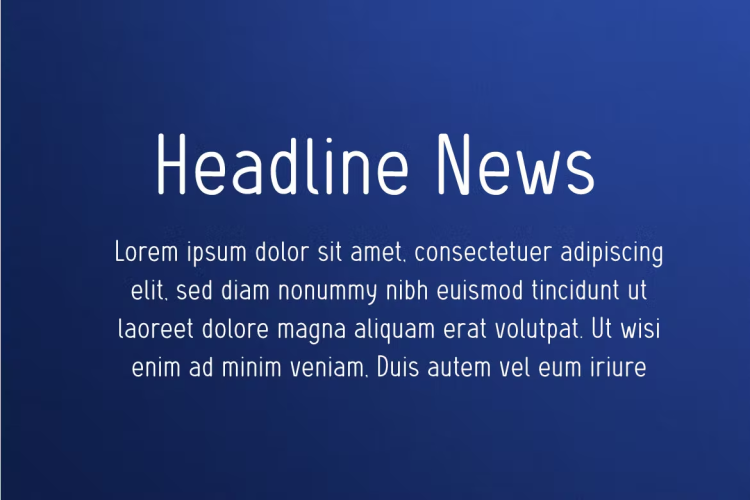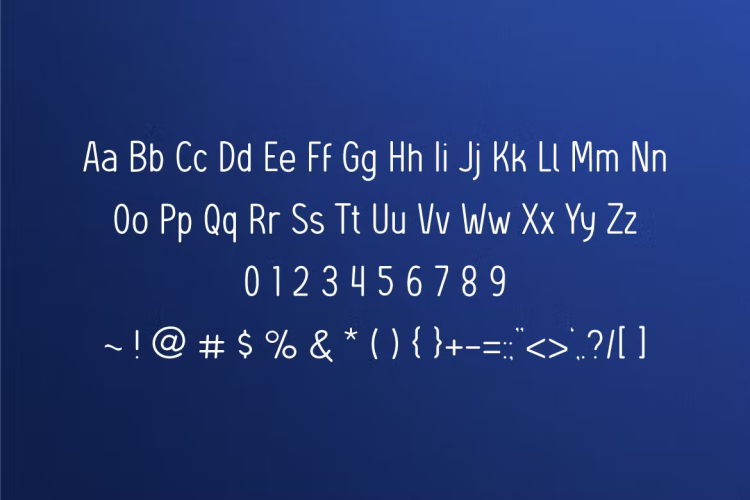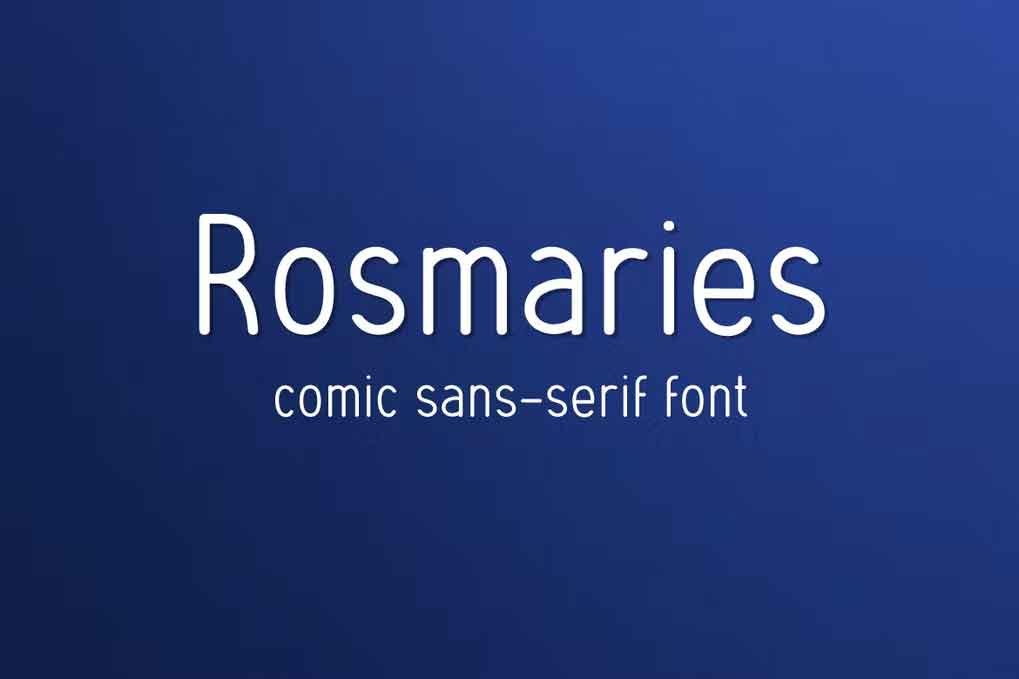
Rosmaries Comic Font
Handmade sans-serif font, that is ROSMARIES Thin, and eyecathcing in one package, Rosmaries suit perfectly for Menu book, children book, comic, kindergarten, toys, movie…
Character set · 104 glyphs
Handmade sans-serif font, that is ROSMARIES Thin, and eyecathcing in one package, Rosmaries suit perfectly for Menu book, children book, comic, kindergarten, toys, movie title, flyer, technology, poster, book cover, title, headline, logo, magazine, banner, or even large-scale artwork.
Where Rosmaries Comic Font works best
Rosmaries Comic Font stays legible at small sizes, which makes it a strong choice for navigation, buttons and dashboards in web design and app interfaces.
Clean sans serifs like Rosmaries Comic Font are the default language of SaaS, fintech and product branding.
What is Rosmaries Comic Font good for?
Rosmaries Comic Font is a Sans Serif Fonts typeface tagged Branding, Editorial, Handwritten, Poster. It works well for headlines, logos, posters, social media graphics and branding projects that need a distinctive sans serif fonts look.